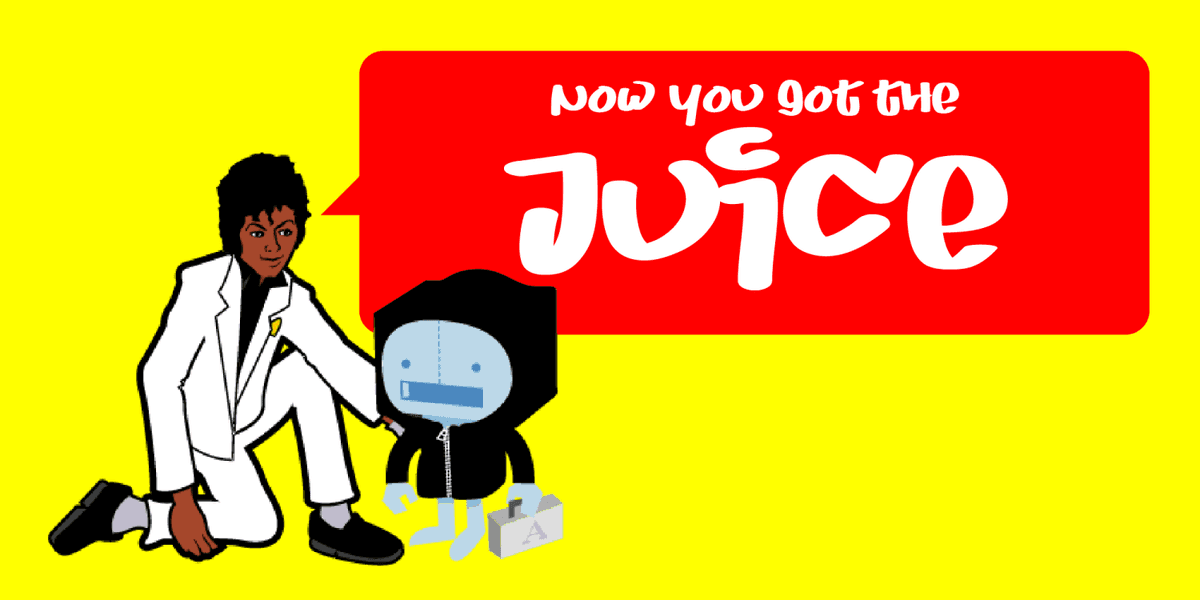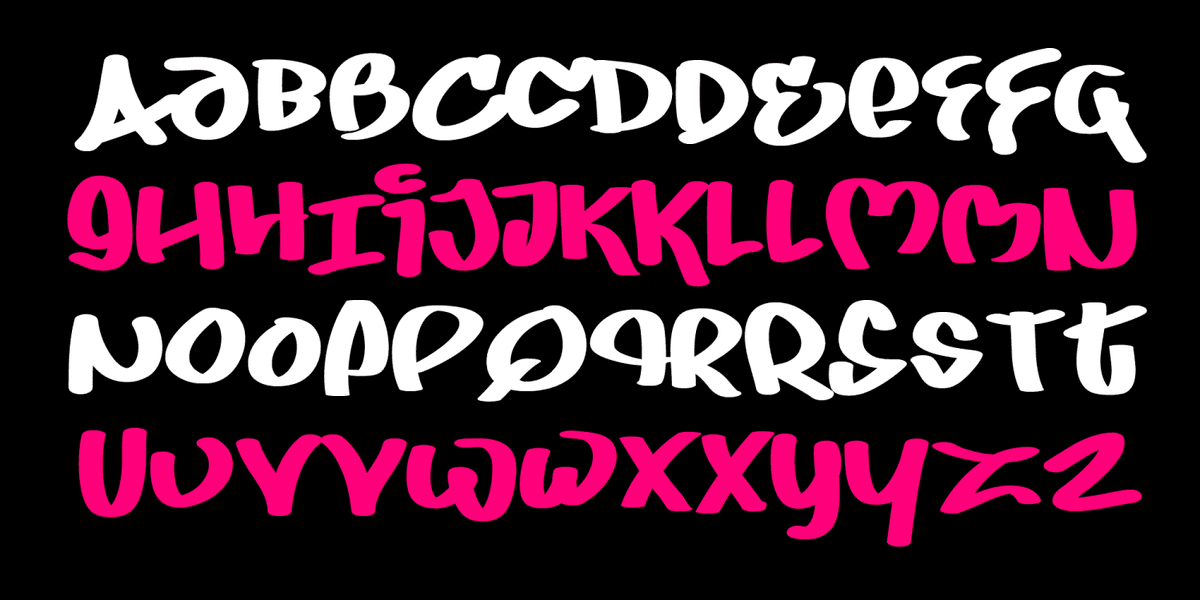
The kids on the street want fonts so mean and hardcore. How hardcore? What street? You want to know? Take the panache of MC Hammer, the flavor of Brooklyn, add in the sauce of LL Cool Bot and you've got yourself one font that don't take 'no' for an answer. As an added bonus, Thriller Mike gives it his "Wanna Be Startin' Somethin" Seal of Approval, so you know its so bad its good!